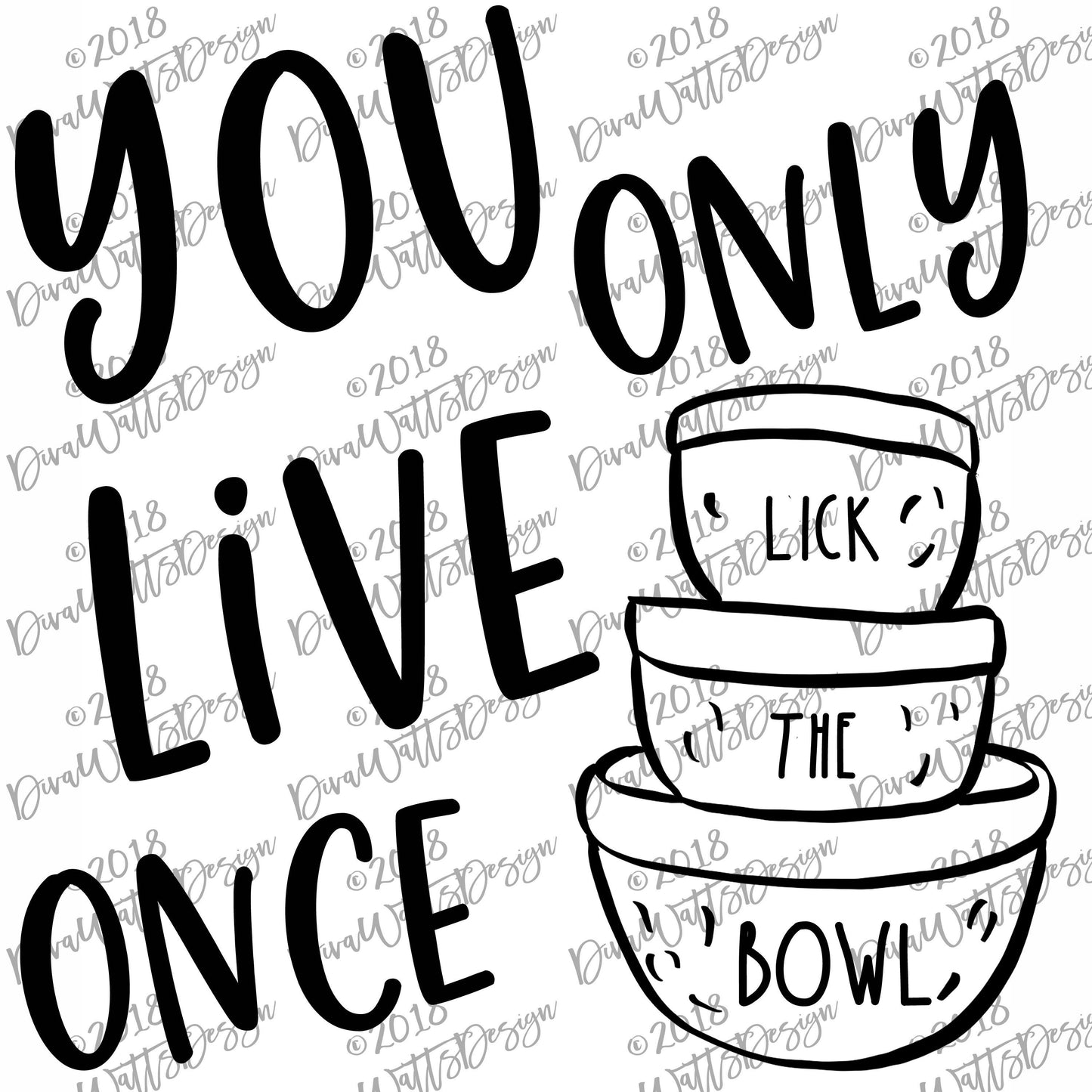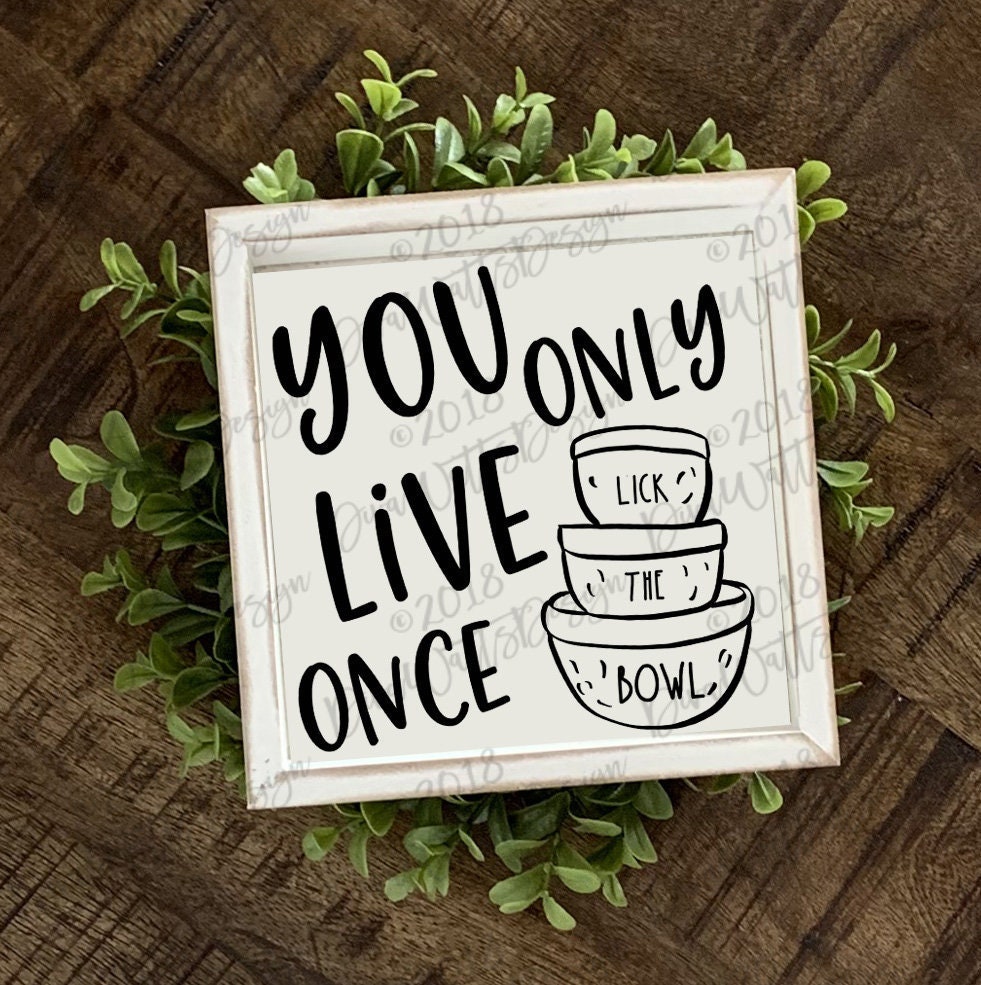
SVG You Only Live Once Lick The Bowl | Kitchen Wall Towel Art | Farmhouse Style Inspired Bowls & Skinny Font | Instant Download
Farmhouse style bowls stacked with words using a skinny font.